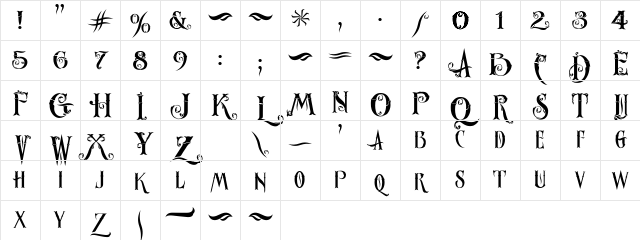
Ornatique Regular
Foundry: Designstation
Designer: designstation
Design Context for Ornatique
Ornatique is a composed and adaptable typeface that performs quietly and consistently across a wide range of design contexts.